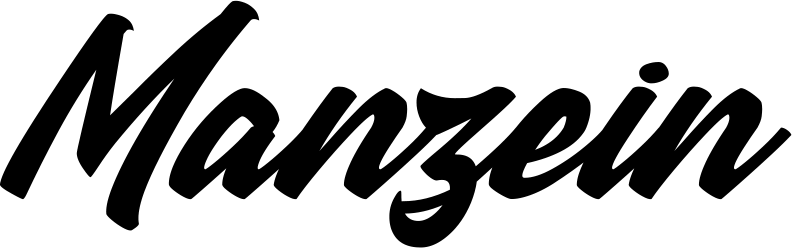
Manzein Font
Fonts play the first role in astonishingly arranging letters when it comes to giving a specific appearance to your typography. Here, Manzein as a brush font comes in handy to create beautifulness in your poster design, greeting cards, invitations, and logos with its artistic touch. Despite being illegible, its curved and friendly design can have a lasting effect on the audience’s minds.